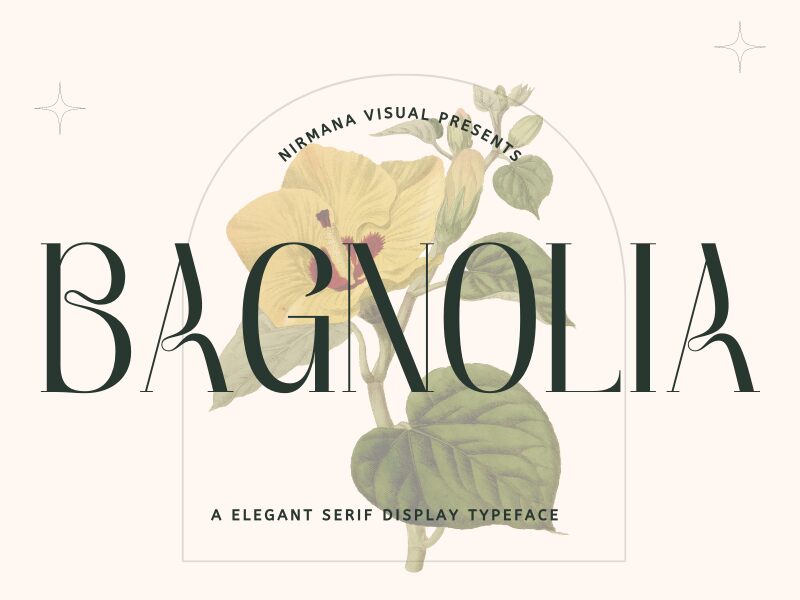
Bagnolia, the creation of renowned font designer Nirmana Visual, is a captivating display font with a retro serif style. Its semi-light weight and condensed width exude an air of sophistication, making it perfect for various creative projects. Whether you're designing eye-catching logos for high-end fashion brands or crafting elegant invitations for glamorous events, Bagnolia adds a touch of timeless charm. With its sleek and refined aesthetic, this font guarantees to elevate your designs to new heights. Let Bagnolia bring an air of elegance to your typographic ventures!
Bagnolia